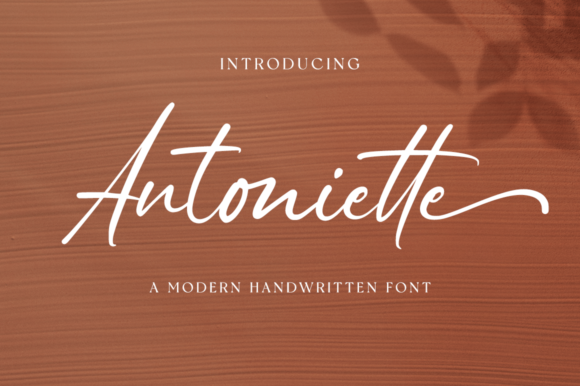
The Elegant Charm of Antoniette Font: A Designer’s Delight
I’ll never forget the time I was working on a wedding invitation project, and my client asked me to create a custom design that exuded elegance and sophistication. As I scrolled through my font library, I stumbled upon Antoniette Font, and it instantly caught my eye. Its charming and elegant vibe was exactly what I needed to bring my design to life. In this article, I’ll share my experience with Antoniette Font, its features, and how to make the most of it in your designs.
A Personal Review: What I Love About Antoniette Font
Antoniette Font has quickly become one of my go-to fonts for various design projects. Here’s what I love about it:
- ✨ Elegant and charming aesthetic that’s perfect for wedding invitations, thank you cards, and greeting cards
- 🌟 Versatile and adaptable to different design styles and industries
- 💫 High-quality and crisp font that looks stunning in both print and digital formats
While Antoniette Font is an excellent choice for many design projects, there are a few minor quirks to be aware of:
- 🤔 Limited availability of certain characters or symbols, but this can be easily overcome with glyphs and swashes
- ⚠️ May not be the best fit for very large or bold designs, as it can lose some of its elegance
Antoniette Font was designed with the intention of creating a beautiful, elegant, and versatile font that would inspire creativity and sophistication. The designer aimed to craft a font that would be perfect for wedding invitations, greeting cards, and other special occasions. With its charming and refined aesthetic, Antoniette Font has become a popular choice among designers and crafters.
| What is Antoniette Font best used for? | Antoniette Font is ideal for wedding invitations, thank you cards, quotes, greeting cards, logos, business cards, and more. |